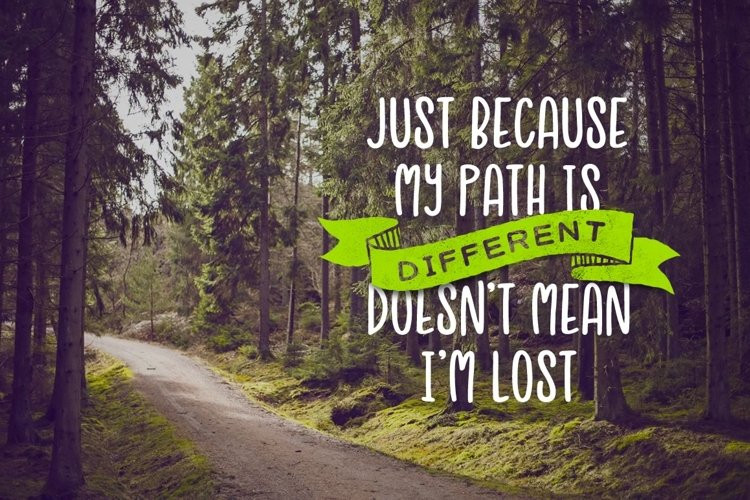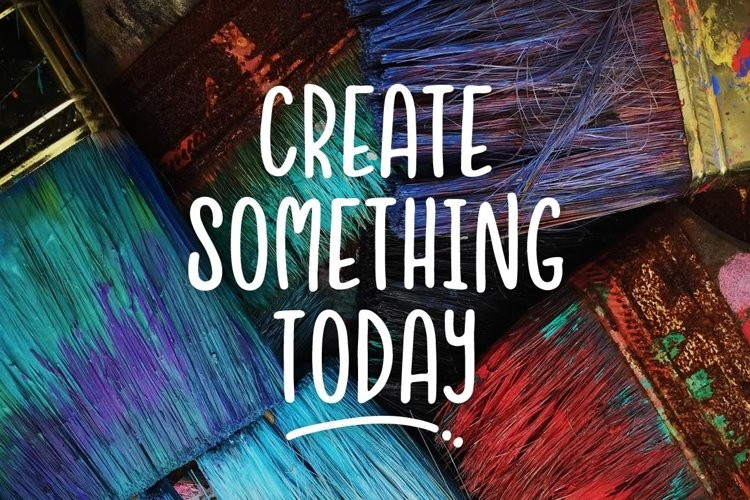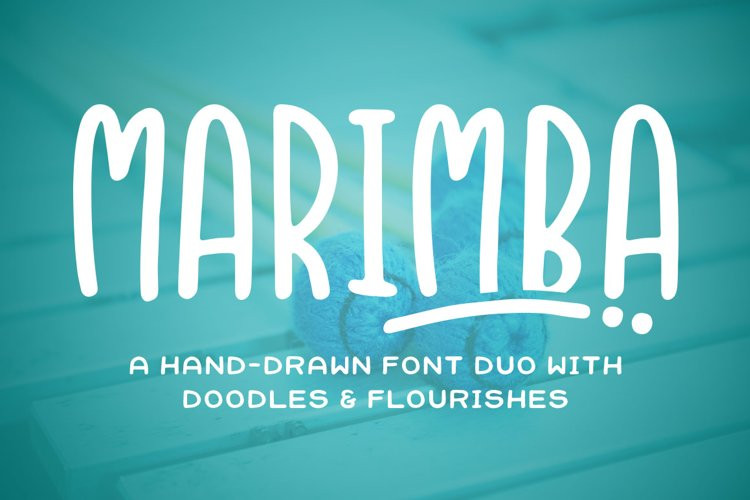
Marimba Font
Marimba FontMarimba is the kind of font you’ll be reaching for over and over again. It pairs great with all sorts of styles and provides a clean, readable font, with a touch of fun. Comes in both a sans and a slab serif with a complementary wide, bold font. Also included are some doodles to help bring your projects to life.